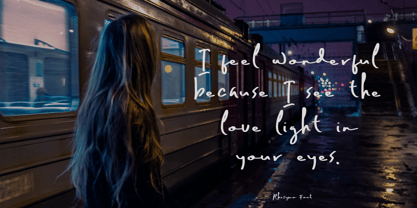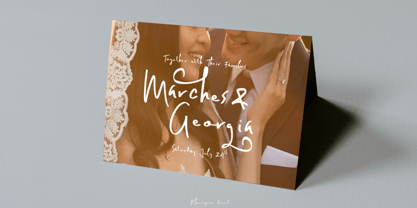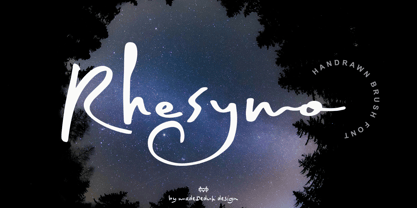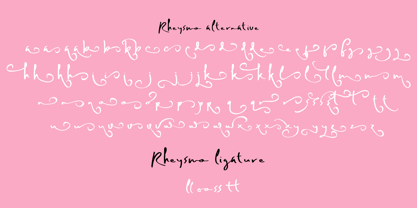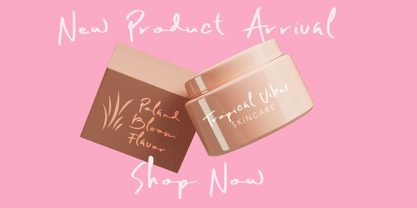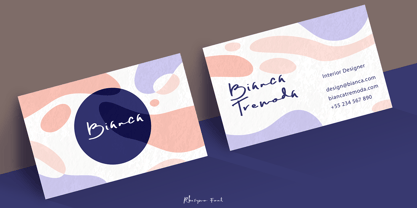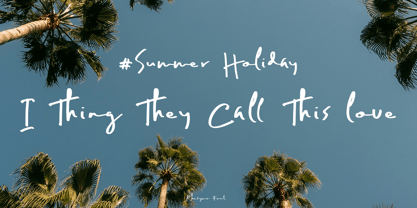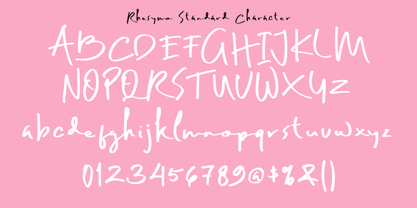
Rhesymo
by madeDeduk
The Rhesymo Font Family was designed by madededuk and published by madeDeduk. Rhesymo contains 1 styles. More about this family
Really excited to introduce Rhesymo is a brush font! Give a incredible impression for all your project design. Rhesymo font come with much alternative and this font perfect for poster design, book covers, merchandise, fashion, newsletters, branding, advertising, magazines, greeting cards, album covers, quote and more.
Designers: madededuk
Foundry: madeDeduk